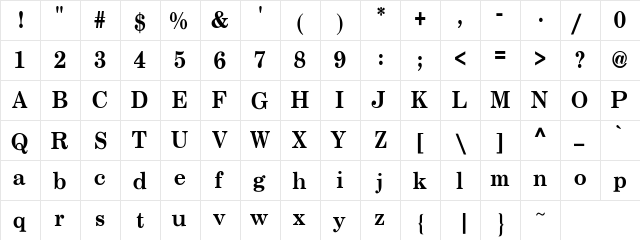
NewCenturySch 5 Regular
NewCenturySch 5 takes a measured approach to typography — its balanced proportions and neutral character make it a reliable workhorse for both digital and print work.